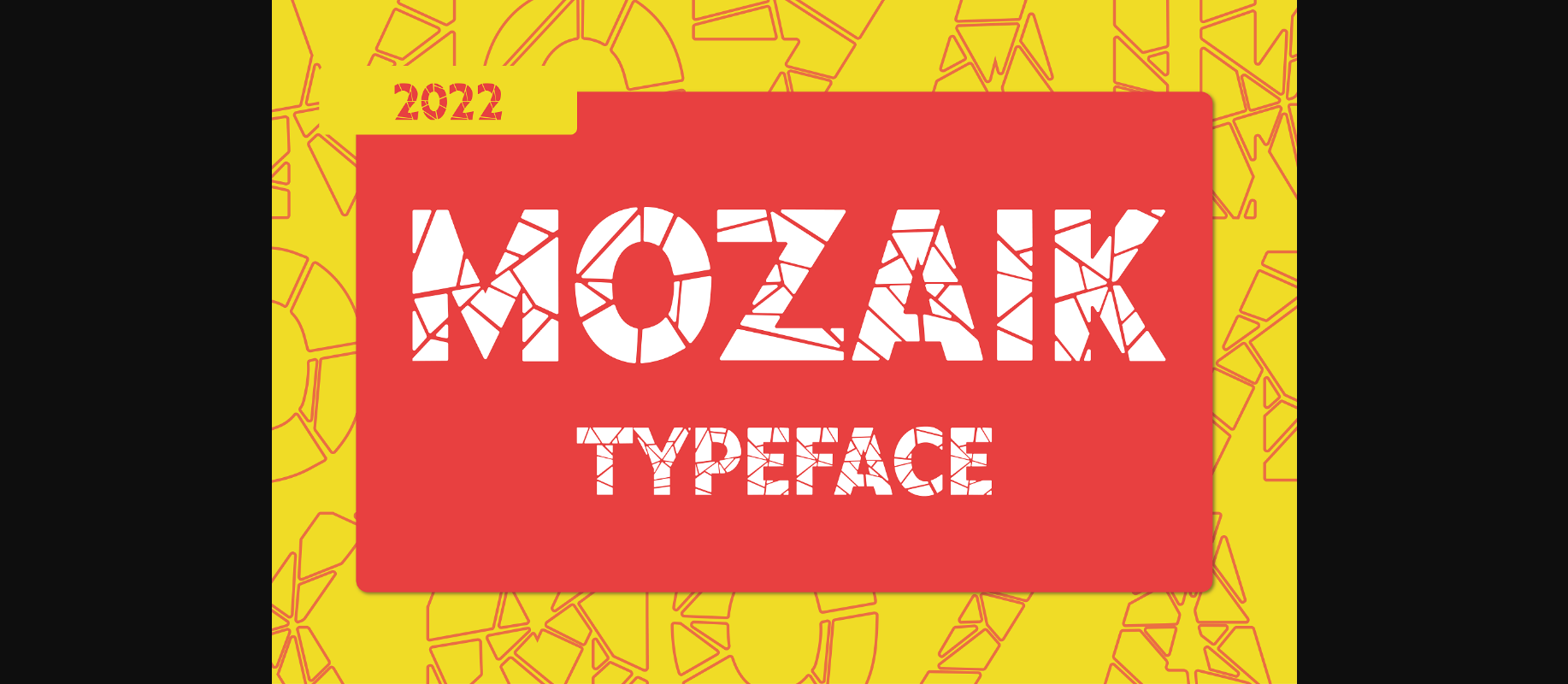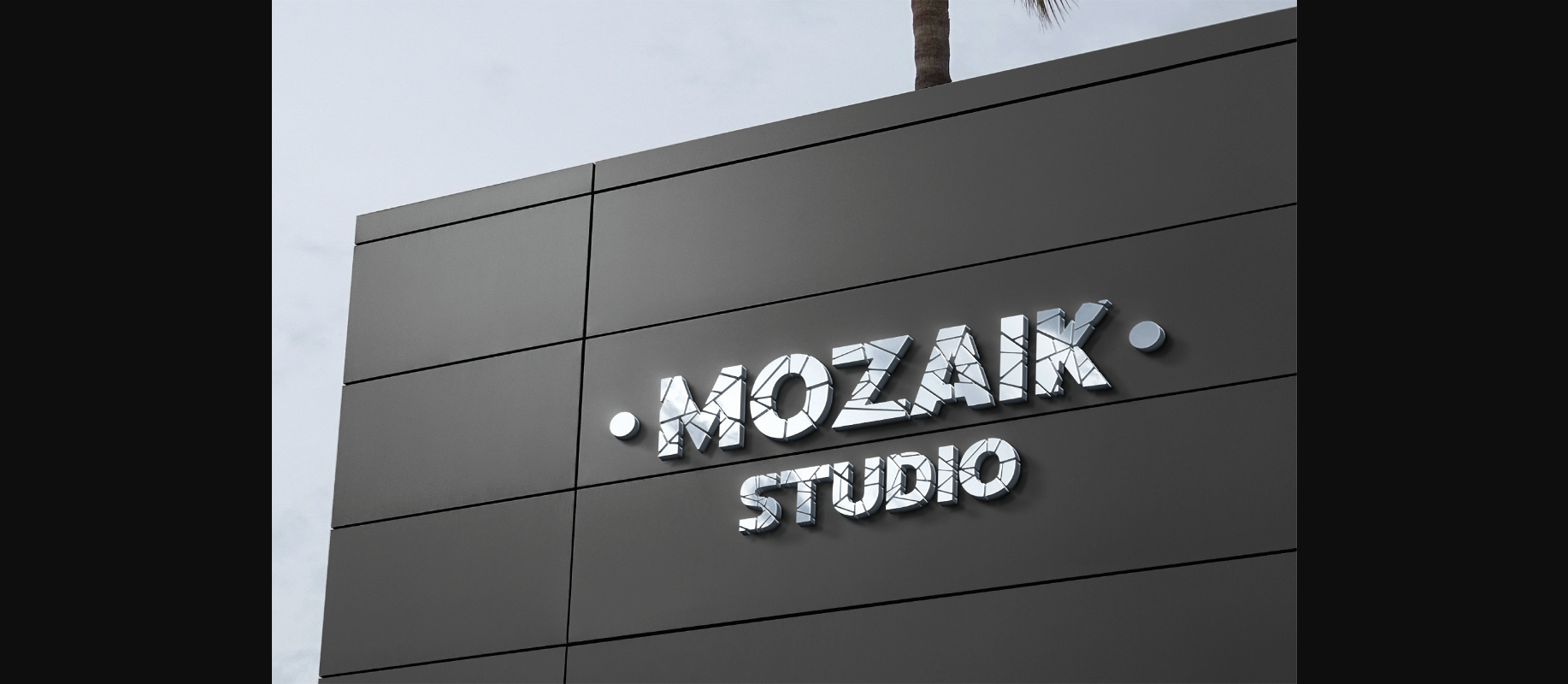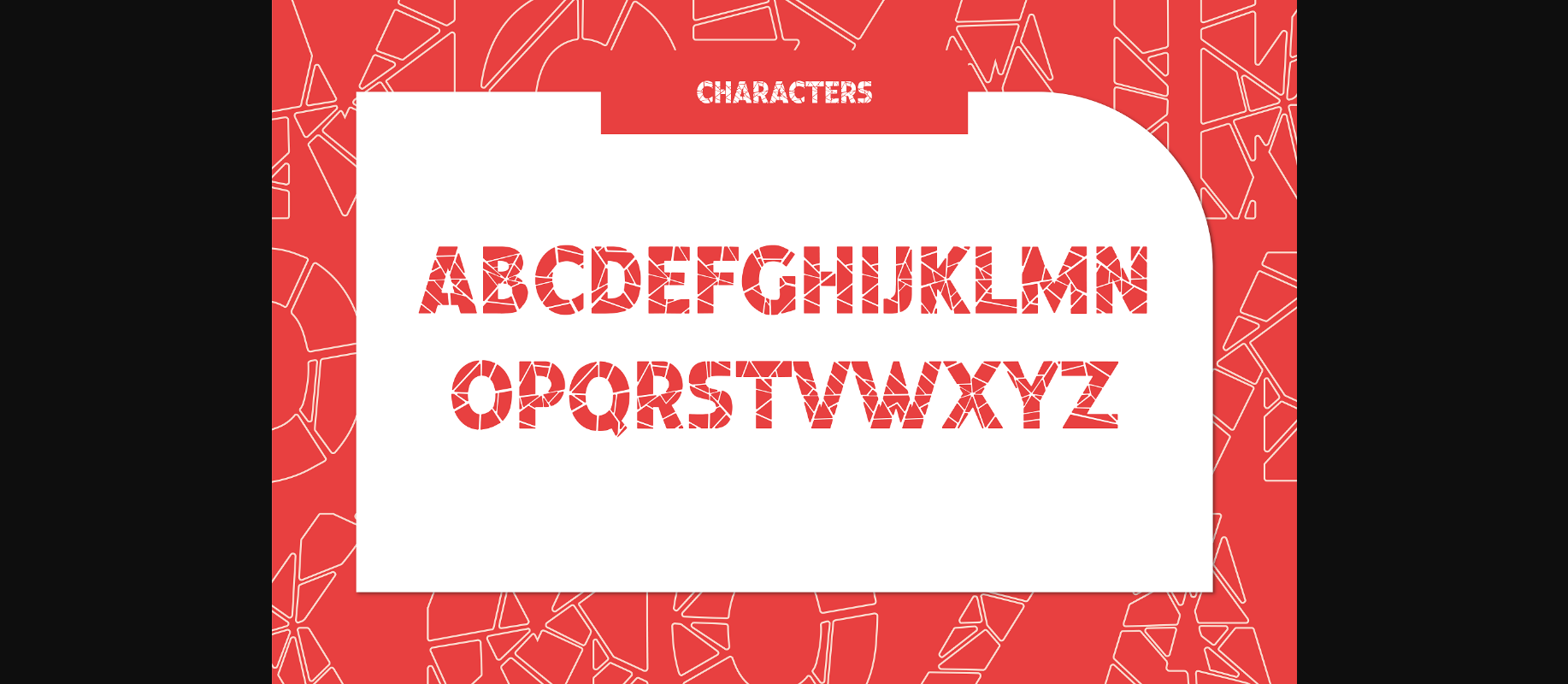
About Mozaik Font
Mozaik is a mosaic-inspired all-caps decorative typeface. Mozaik is ideal for large headlines, posters, albums, social media, Youtube covers, films, and much more. Be sure to check out the preview photos so you can get inspired.